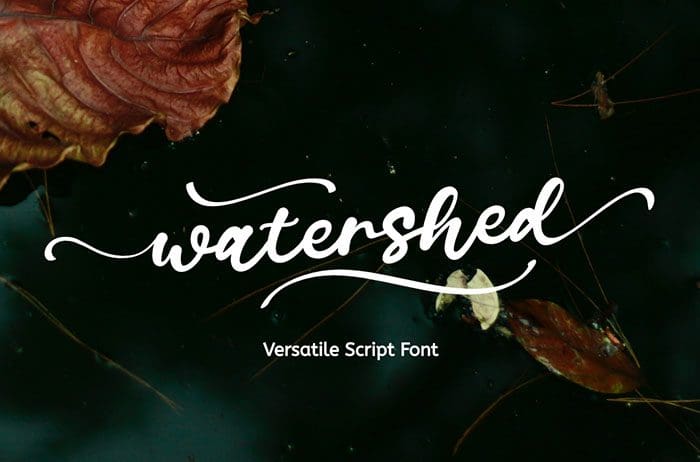
Free Watershed Script Font
Free Watershed script font. It has Open Type features such as Stylistic Sets, Ligatures, and Swashes. This font is also multilingual and PUA encoded. Use it for any design projects that require a charming appearance! This font is available only for personal use. Created this font by Epiclinez. More free Script Fonts.
Free Watershed Script Font